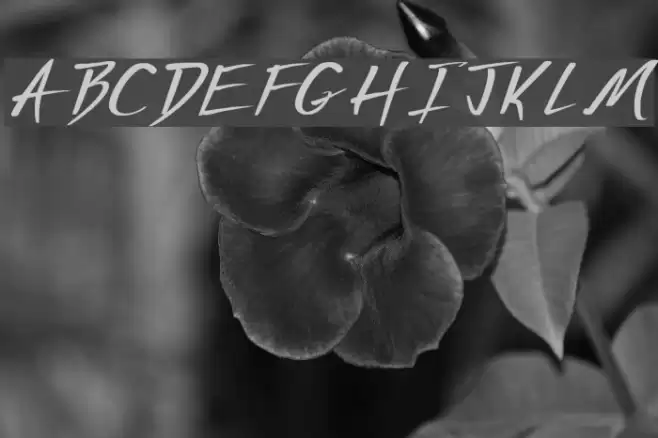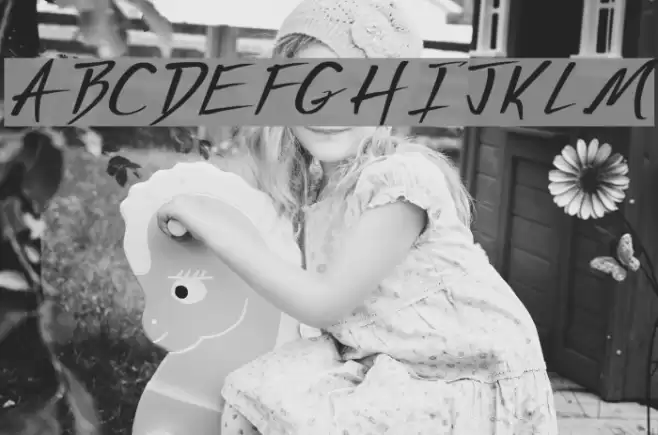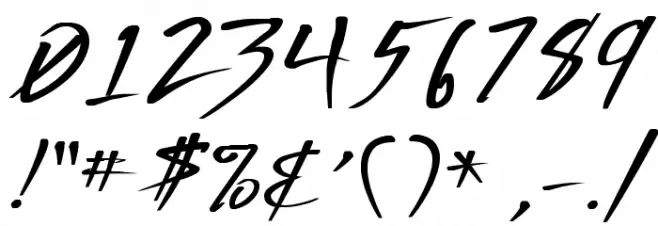
Vecker Bold Font
Vecker Bold Description
This font exudes a dynamic and energetic style, characterized by its bold and fluid strokes. The letters are crafted with a sense of motion, giving them a handwritten appearance that is both expressive and modern. The uppercase and lowercase letters maintain a consistent slant, enhancing the sense of speed and movement. The numbers and special characters are equally dynamic, integrating seamlessly with the overall design. The strokes vary in thickness, adding a touch of elegance and sophistication to the font's appearance.
A bold, dynamic script font with fluid, expressive strokes from Quirky fonts.